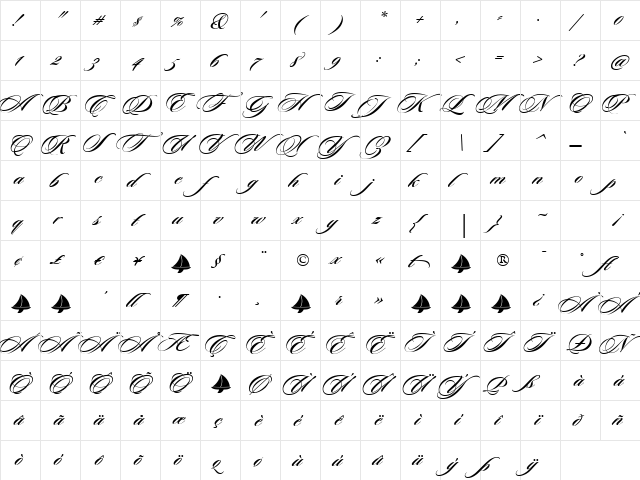
Sloop Script Two BETA Bold
Design Context for Sloop Script Two BETA Typeface
Sloop Script Two BETA flows with the natural rhythm of handwritten lettering, making it ideal for designs that call for warmth and personal expression. The heavy weight commands attention and anchors typographic hierarchies.
Font Pairing: Combine Sloop Script Two BETA with a simple geometric sans for maximum contrast — the tension between flowing curves and clean structure is a classic typographic pairing.
Pro Tip: Use Sloop Script Two BETA for short runs of text — names, titles, or taglines. Extended body copy in script faces tires the eye quickly.